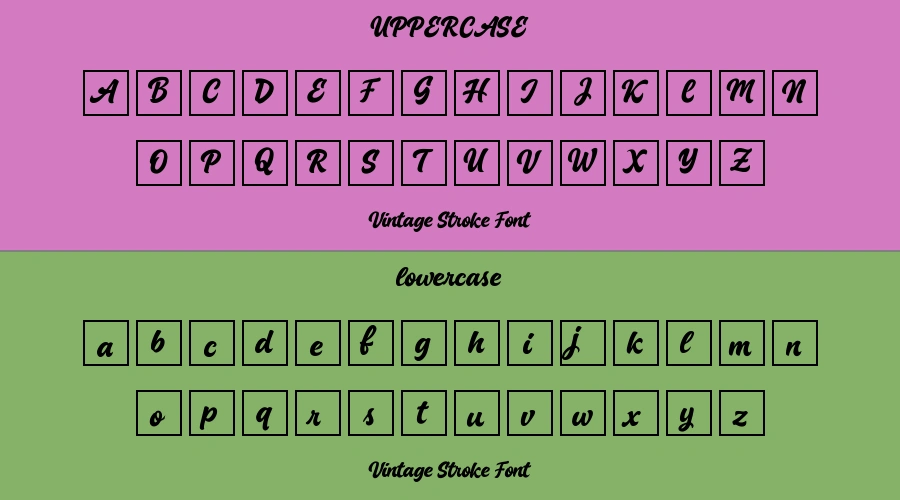
About Vintage Stroke Font
Designed with precision, Vintage Stroke Font merges hand-drawn quality with consistency in every character. This versatility makes it particularly effective for brand guidelines, where sophistication and artistic merit directly impact communication quality. Each letterform demonstrates meticulous craftsmanship.
Technical excellence shines through elements like wedge serifs and word marks, enhancing typographic versatility. In book chapters settings, Vintage Stroke Font proves its worth through superior output consistency. The thoughtful execution of curve radius and educational suitability ensures professional results.